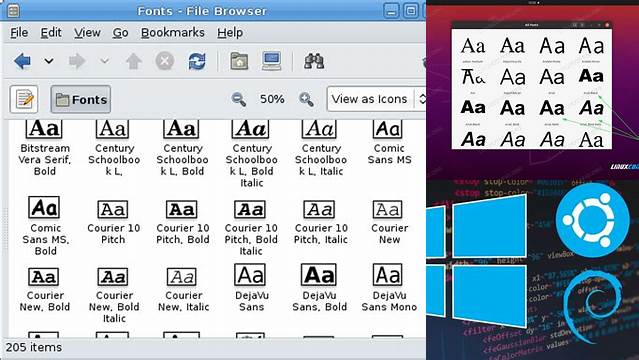
Install Microsoft Fonts On Ubuntu: A Complete Guide
Hey guys! Ever stared at a document on your Ubuntu machine and thought, "Man, I wish I had those classic Microsoft fonts"? You're not alone! Getting those fonts – things like **Arial, Times New Roman, and Courier New **– up and running on Ubuntu is a super common thing people want to do. It's not just about making your documents look the way you want; it's often about compatibility. If you're collaborating with folks using Windows or need to match a specific design, having these fonts is essential. This guide will walk you through the entire process, from the initial setup to ensuring everything works perfectly. Let's get started, shall we?
Why Install Microsoft Fonts?
So, why bother with installing Microsoft fonts on Ubuntu? Well, there are a few key reasons. First and foremost, it's about compatibility. Imagine you're working on a project with someone who uses Microsoft Word on Windows. If you don't have the same fonts, the document's formatting can go haywire. Text might reflow, headings could look different, and the whole thing just won't look right. Having the standard fonts ensures your documents look identical on both operating systems, avoiding any annoying formatting headaches. That's the first reason why it's very important, guys.
Beyond compatibility, there's also the issue of professionalism and design consistency. Many businesses and organizations have specific font requirements for their branding and documents. Arial, Times New Roman, and Calibri are incredibly popular for business documents, resumes, and reports. They're considered standards for a reason – they're readable, familiar, and project a professional image. If you're creating marketing materials, presentations, or anything else that needs to look polished, having these fonts readily available is a huge advantage. Then you can say, I have it here with me. It's pretty cool, isn't it?
Finally, think about the ease of use and convenience. When you're working with documents that use these fonts, you won't have to worry about substitutions or finding alternative fonts that look similar. It's all there, ready to go, right at your fingertips. It saves you time and effort, allowing you to focus on the content and get your work done. So, yeah, let's go.